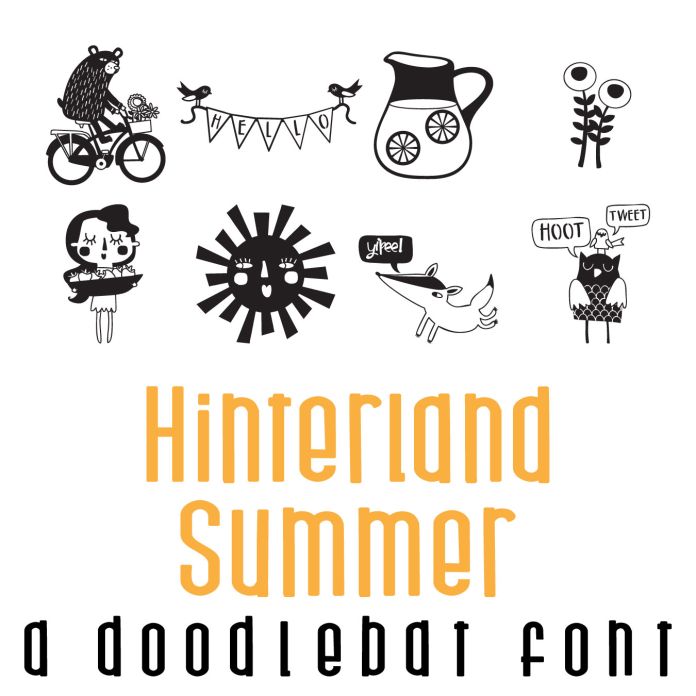
Hinterland Summer Doodlebat Font is a dingbat font that features 26 whimsical animals and all things summer! Perfect for classrooms, teachers, gifts, decor, scrap book pages, planner stickers and more!